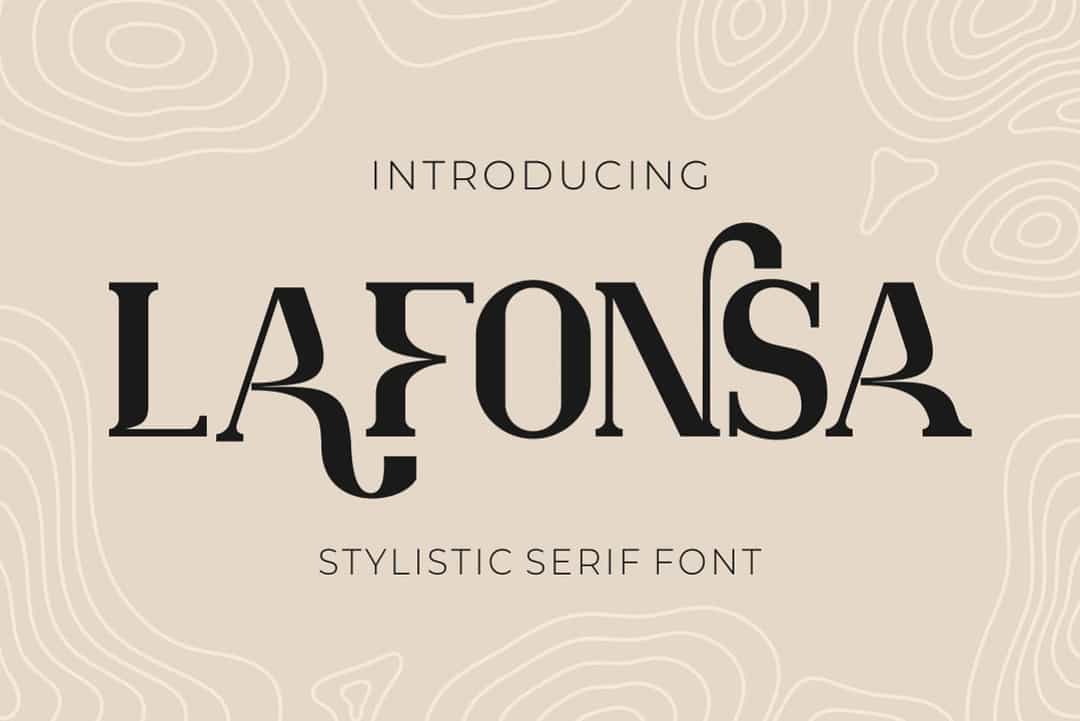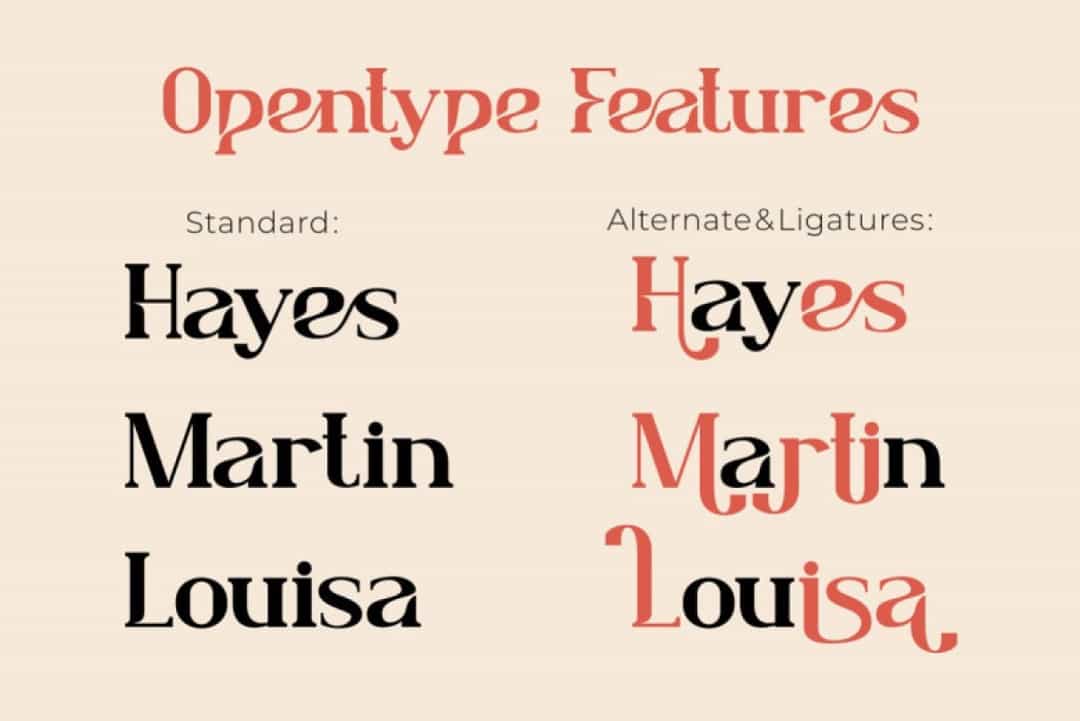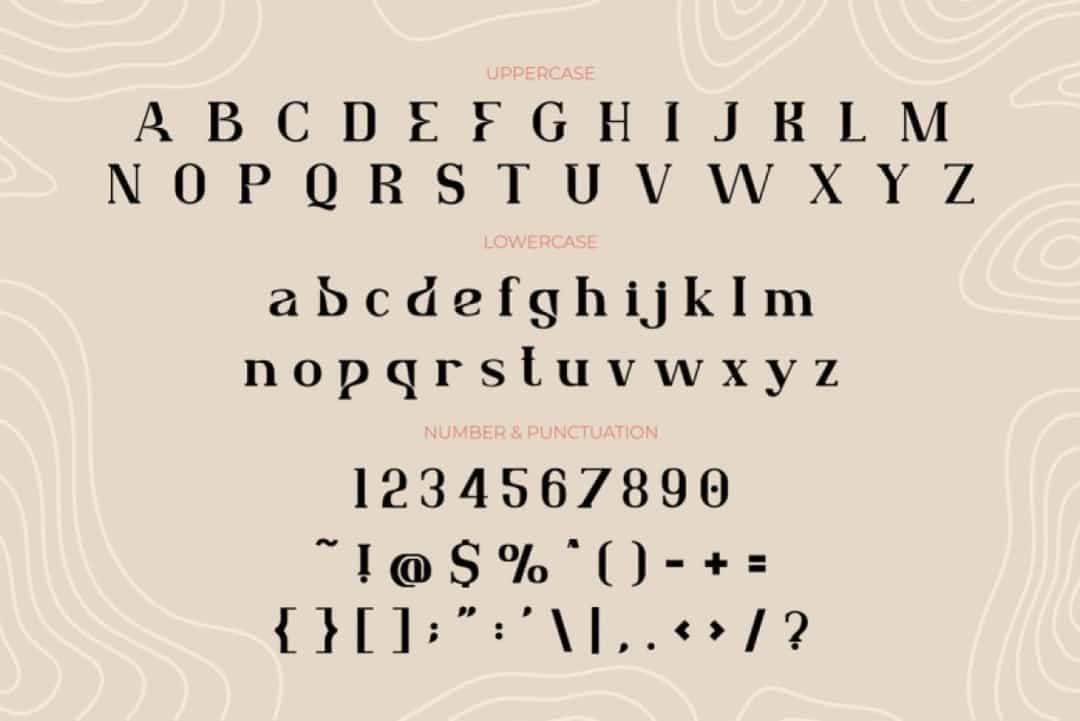
Lafonsa, the new serif font designed by Font Bureau is inspired by stylistic typography and features such as distinctive alphabet and serif style typography style to provide numerous options for letter combinations. Furthermore, with open type features like alternate letters and end swash, creating fantastic letters is now easier than ever!